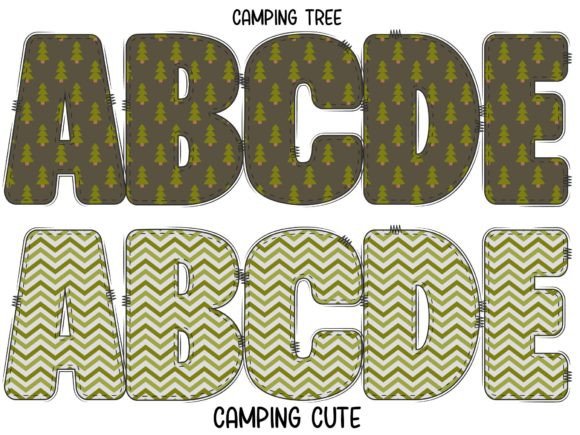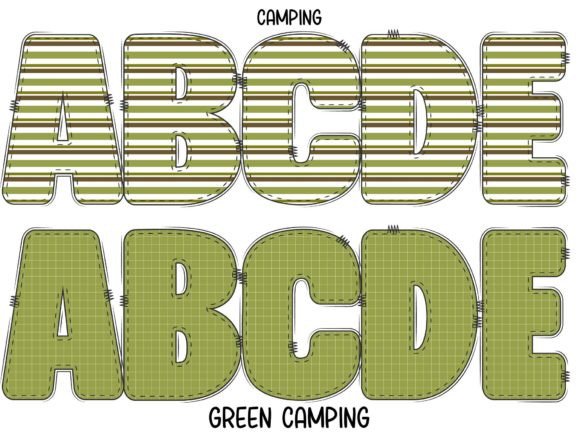
The Great Outdoors, in Fonts: Discovering Camping Font
I’ll never forget the time I was working on a camping-themed project for a client, and I just couldn’t find the right font to capture the adventurous spirit. I scrolled through page after page of font options, but nothing seemed quite right. That was until I stumbled upon Camping Font – a cute and colorful font that instantly transported me to the great outdoors. In this article, I’ll share my experience with Camping Font, its features, and how to make the most of it in your designs.
First Impressions: A Personal Review
- ✨ **Unique Color Font**: Camping Font is an Opentype-SVG color font, which means it’s compatible with a range of design software, including PhotoShop, Illustrator, Silhouette, and Inkscape.
- 🎨 **Versatile**: With its playful and adventurous vibe, Camping Font is perfect for a variety of projects, from camping and outdoor-themed designs to kids’ party invitations and more.
While Camping Font is an amazing addition to any design project, there are a few things to keep in mind:
- 🤔 **Learning Curve**: If you’re new to using color fonts or OpenType features, you might need to spend some time getting familiar with the font’s capabilities.
Exploring OpenType Features
Camping Font is an OpenType font, which means it comes with a range of features that allow you to customize your text. Here are a few things you can do:
- Access **stylistic alternates** to swap out letters and numbers for alternate versions.
- Use **ligatures** to combine letters and create a more natural flow.
- Experiment with **glyphs** to add extra graphics and flourishes to your text.
The Story Behind Camping Font
Camping Font was designed by a team of outdoor enthusiasts who wanted to capture the spirit of adventure and freedom that comes with exploring the great outdoors. With its playful, colorful design, Camping Font is perfect for anyone who loves camping, hiking, or just spending time in nature.
Q: What is a color font?
A: A color font is a type of font that includes color information, allowing you to display text in a range of colors. Camping Font is an Opentype-SVG color font, which means it’s compatible with a range of design software.